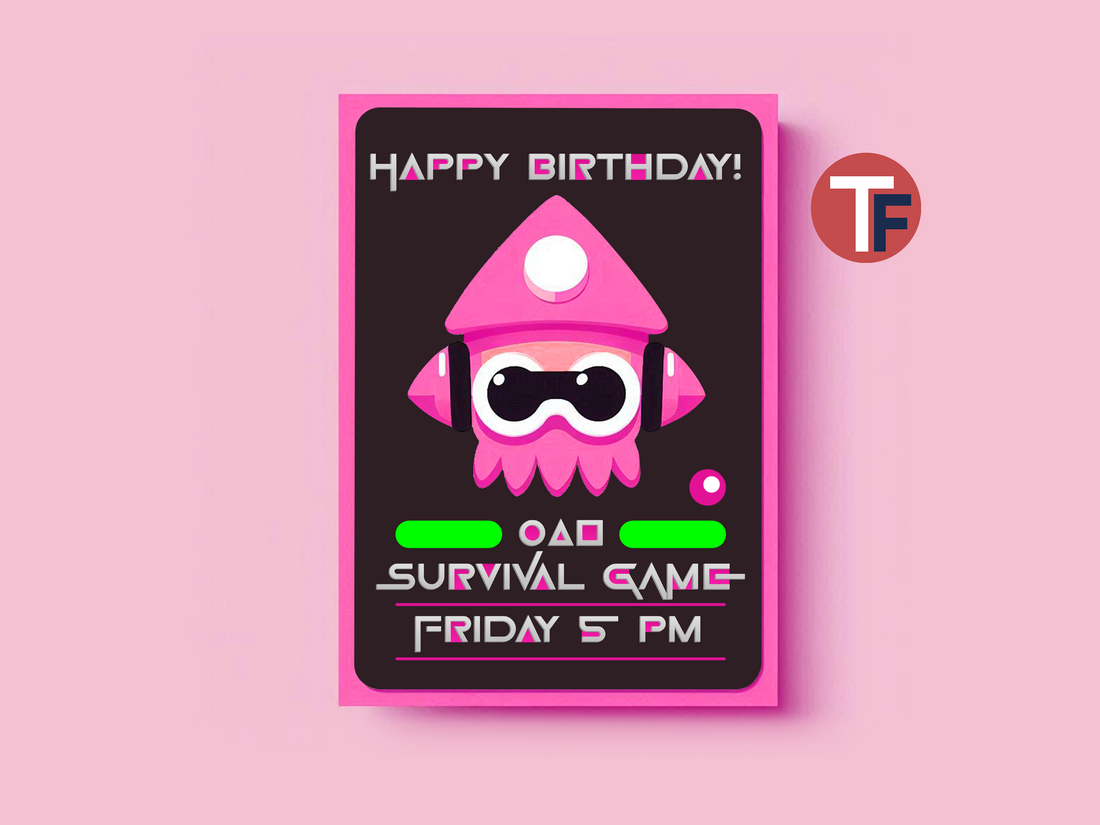
Survival Challenge Font by Alina – Affordable and Fun Ideas for Squid Game-Themed Parties
Host the Ultimate Squid Game Party with Alina's Survival Challenge Font
Are you ready to host the most talked-about event of the year? Squid Game took the world by storm, and now you can bring its thrilling vibe to your next party or event—without breaking the bank. With Alina's Survival Challenge Font, part of the Textured Fonts collection, you'll have everything you need to create eye-catching invitations, decorations, and more. Let's dive into how this font can take your Squid Game-themed party to the next level while keeping costs low!
Why Alina's Survival Challenge Font is Perfect for Your Party
Capture the Squid Game Aesthetic:
The bold, geometric design of Alina's Survival Challenge Font mirrors the iconic typography from the show. It's the perfect way to set the tone for your event and get guests excited. -
Versatile and Easy to Use:
Whether you're designing invitations, posters, or even custom T-shirts, this Textured Font works seamlessly across all your party materials. Its textured finish adds a unique, edgy touch that screams Squid Game. -
Impress Your Guests on a Budget:
From the moment they receive their invitations, your guests will know this isn't just any party—it's an experience. Alina's Survival Challenge Font ensures every detail feels authentic and immersive, without the need for expensive decor.
How to Use Alina's Survival Challenge Font for Your Party
Invitations That Stand Out:
Create invitations that grab attention and build anticipation. Use Alina's Survival Challenge Font for headings and pair it with bold red and black colors to mimic the show's iconic visuals.-
Decorations with a Dramatic Flair:
Use the font to design posters, banners, and signage for your event. Think "Red Light, Green Light" signs or custom game instructions that match the Squid Game vibe.-
Custom Party Favors:
Personalize T-shirts, tote bags, or even cookies with Alina's Survival Challenge Font. Your guests will love taking home a piece of the experience.-
Interactive Game Materials:
If you're planning to host your own mini-games, use the font to create scorecards, game rules, or even player badges.-
Why Typography Matters for Themed Parties
Typography is more than just words—it's a key part of your party's atmosphere. Alina's Survival Challenge Font, part of the Textured Fonts collection, instantly transports your guests into the world of Squid Game, making your event feel cohesive and immersive. Plus, it's a small detail that shows you've put thought into every aspect of your party—without spending a fortune.